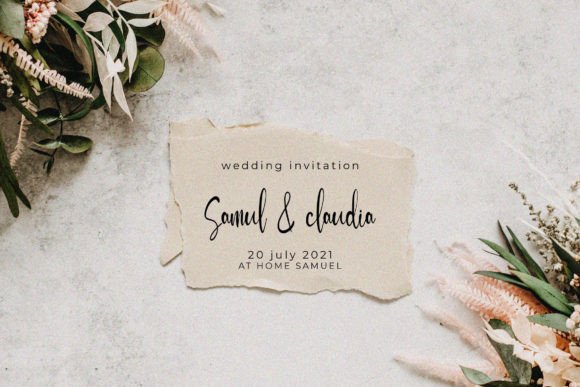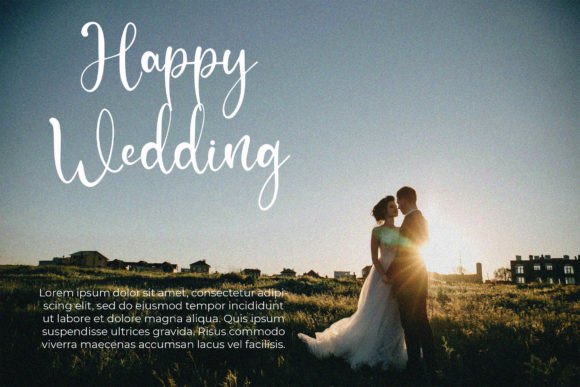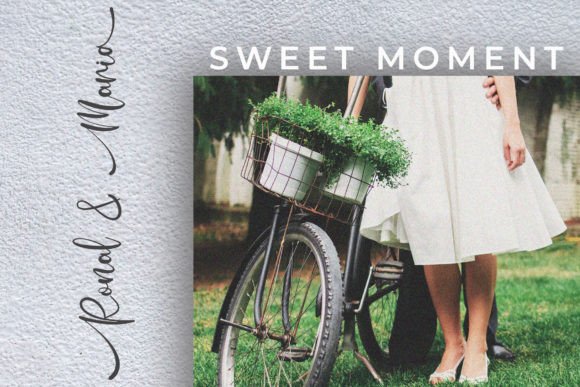
Introduction to Moettiara Font
Moettiara is a calligraphy script font with minimalist style.
Its distinct and well balanced letters make this font a masterpiece Fall in love with its incredibly versatile style and use it to create spectacular designs.
Moettiara Font offers exceptional quality and versatility, making it a valuable addition to your design toolkit. Whether you’re creating for personal projects or commercial use, Moettiara Font delivers professional results.